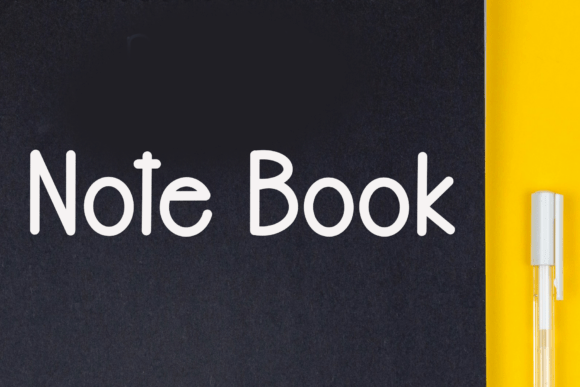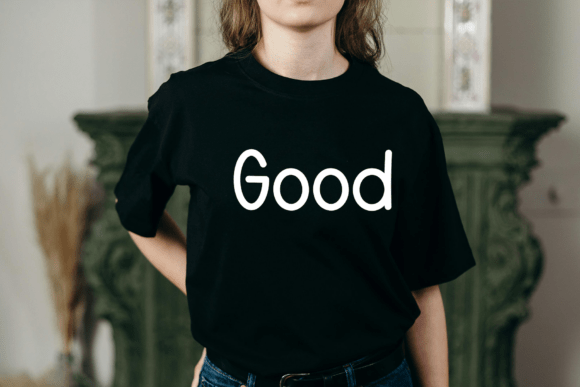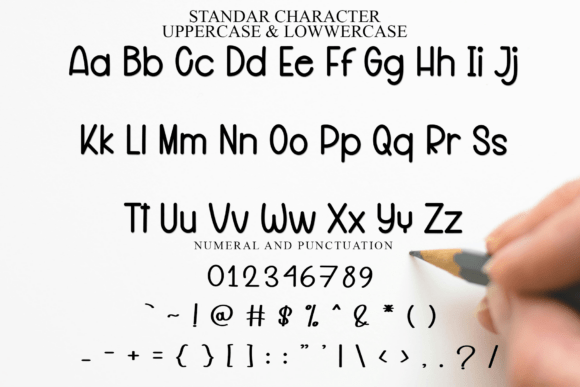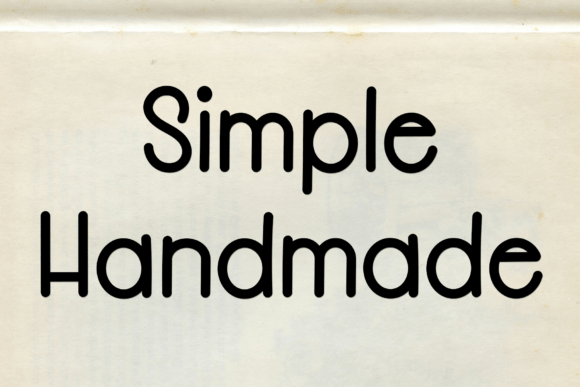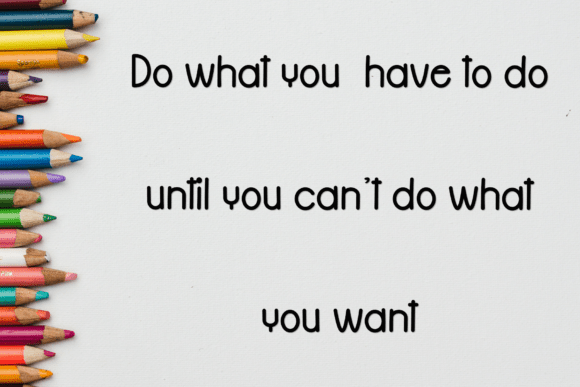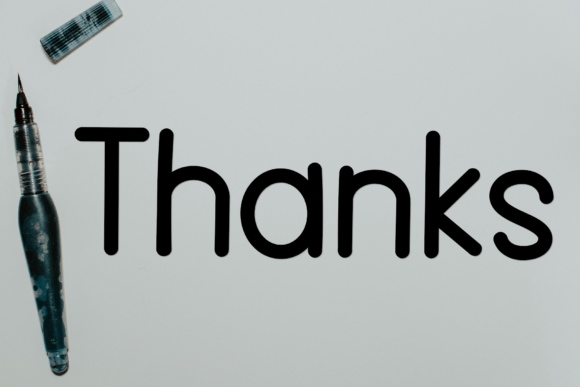
Introduction to Mama Teacher Font
Mama Teacher is a festive and merry typeface that captures the spirit of the holiday season.
Key Features of Mama Teacher Font